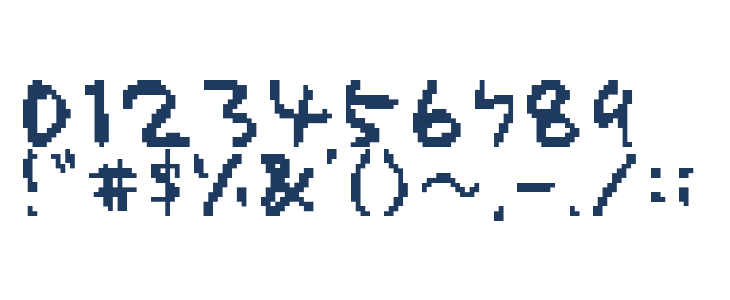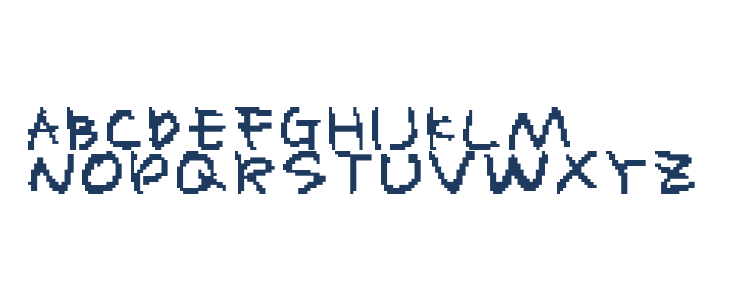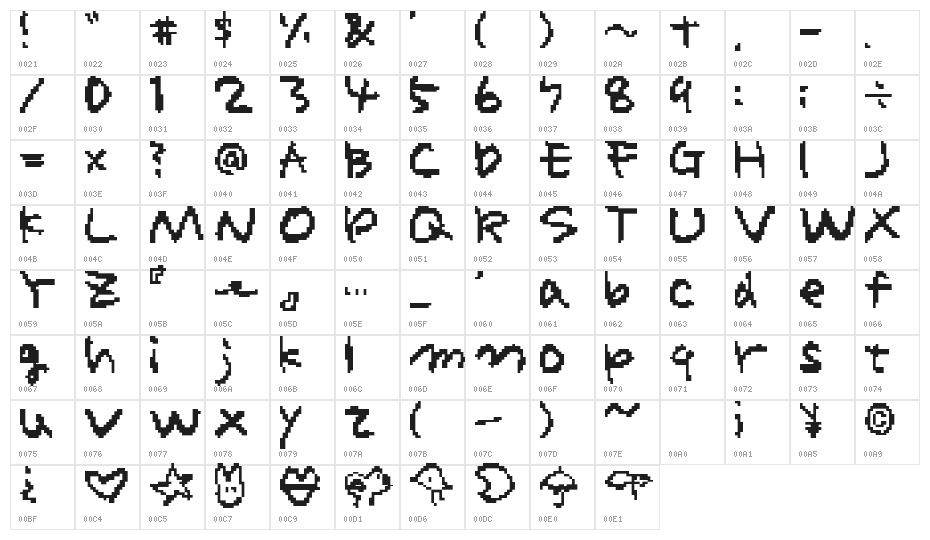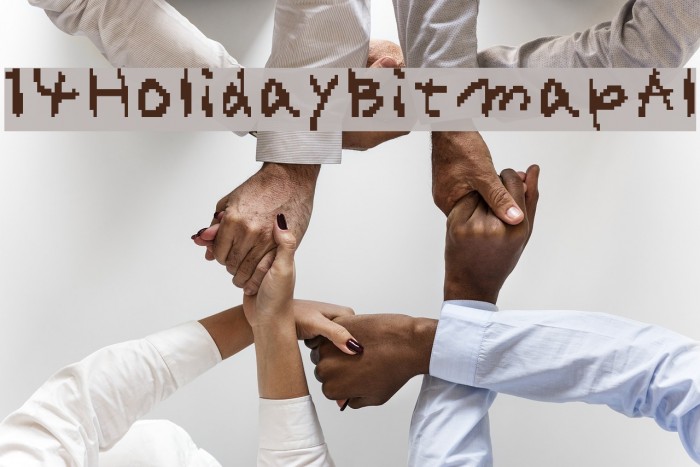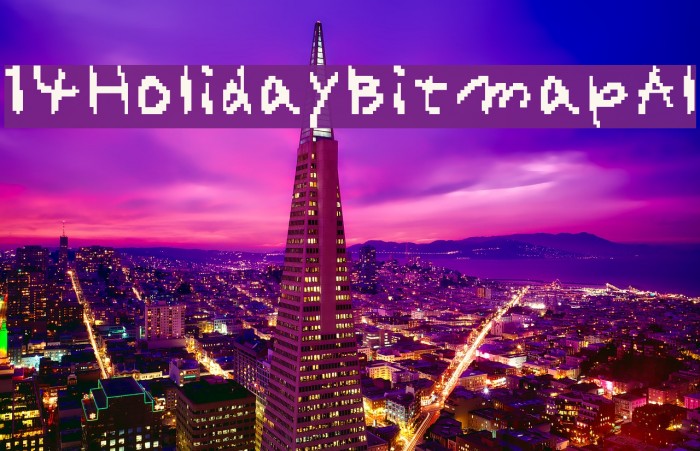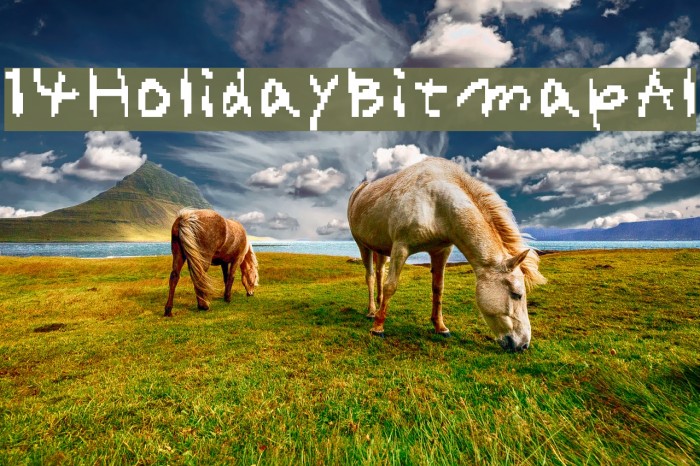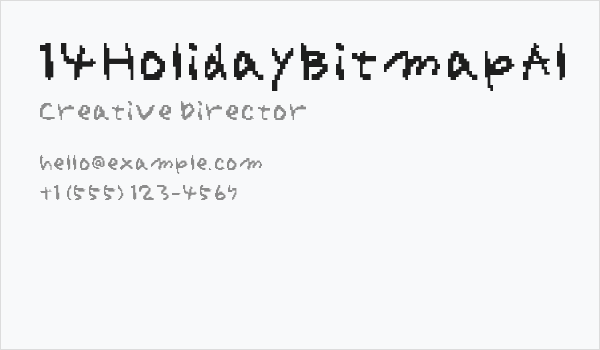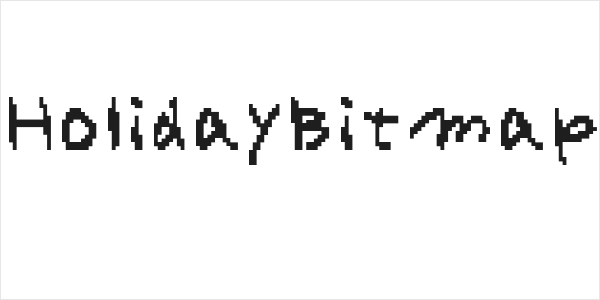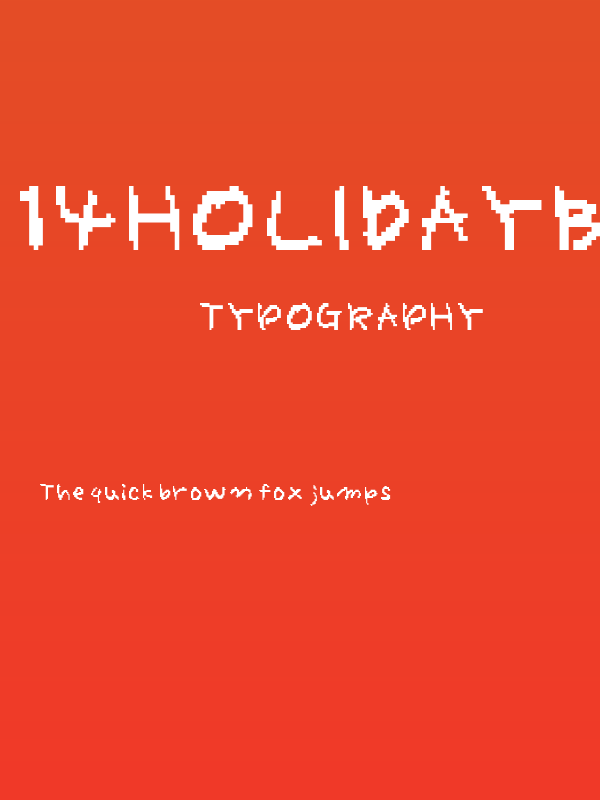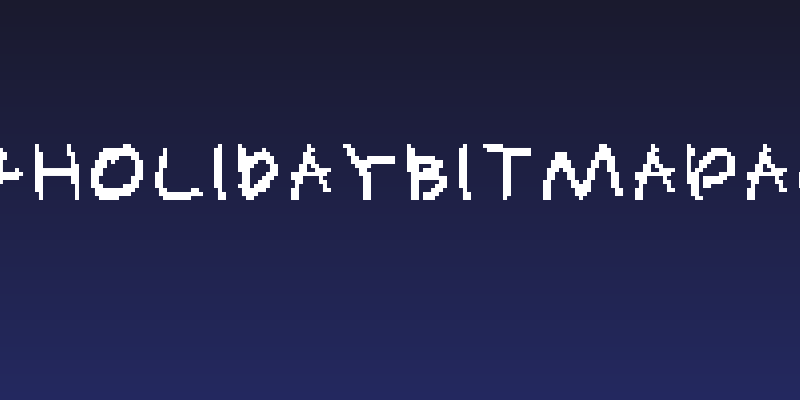
14HolidayBitmapAl Font
14HolidayBitmapAl Description
This font features a playful and irregular design, reminiscent of hand-drawn or doodle-like characters. The strokes are uneven, giving it a casual and informal appearance. The uppercase and lowercase letters maintain a consistent style, with quirky angles and a slightly jagged edge. Numbers and special characters follow the same whimsical pattern, making the font suitable for creative and fun projects. The overall look is dynamic and energetic, perfect for capturing attention in a lighthearted context.
| Proposed Projects | Ideal for children's books, greeting cards, playful branding, and casual event invitations. |